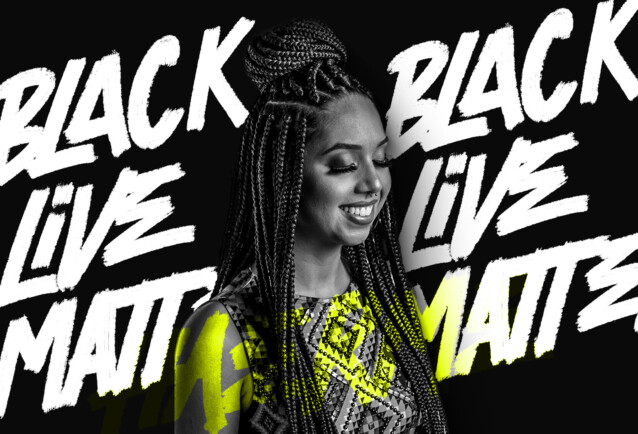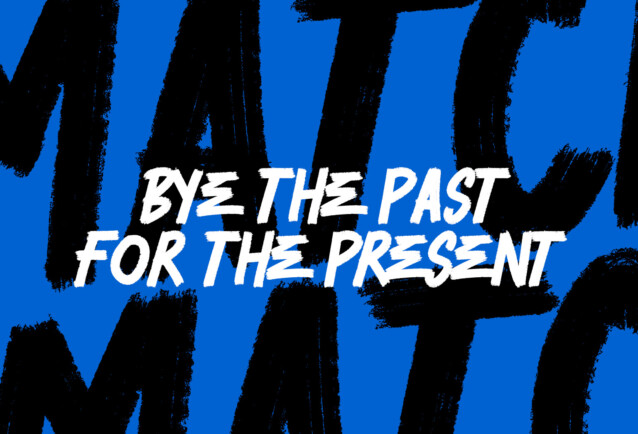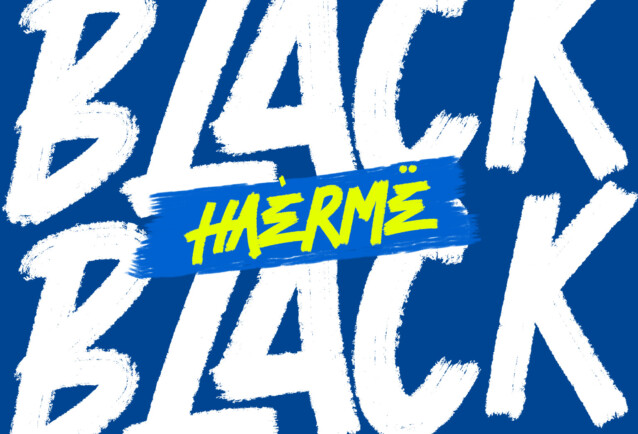
Haerme Font
Haerme Font is a quirky, natural, and attractive hand-made typeface that will add a chic and cheery touch to your future design projects! It contains uppercase letters, lowercase letters, numbers, punctuation, and symbols and supports multilingualism.